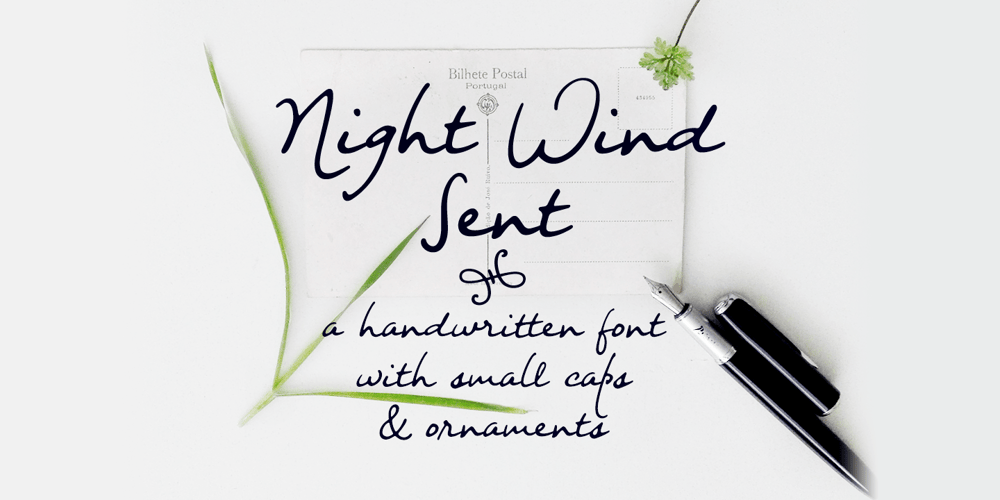
Night Wind Sent Font Family was designed by Ana Parracho and published by Ana’s Fonts. Night Wind Sent contains 4 styles and family package options. Night Wind Sent is an elegant handwritten script font family inspired by old-fashioned handwritten postcards and letters. It includes ligatures (for a true handwritten feel), stylistic alternates, handwritten small caps, and swashes (for an extra bit of drama). Plus! Extra versions of the font: underline and strikethrough, and an ornaments font, to help decorate your text. Night Wind Sent is perfect for any design that needs a handwritten look, such as signatures, notes and quotes, logos and branding.